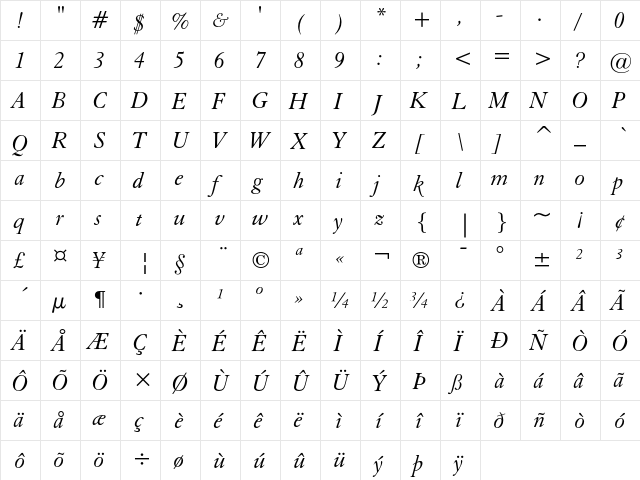
Elegant Garamond Italic Font Preview
Elegant Garamond Italic
Elegant Garamond Italic Font Details
Design Context for Elegant Garamond Typeface
Elegant Garamond takes a measured approach to typography — its balanced proportions and neutral character make it a reliable workhorse for both digital and print work. Its italic angle brings a sense of urgency and motion to the letterforms.
Pro Tip: Try Elegant Garamond for annotation and caption copy alongside an upright companion — the contrast in angle creates a dynamic but ordered typographic system.